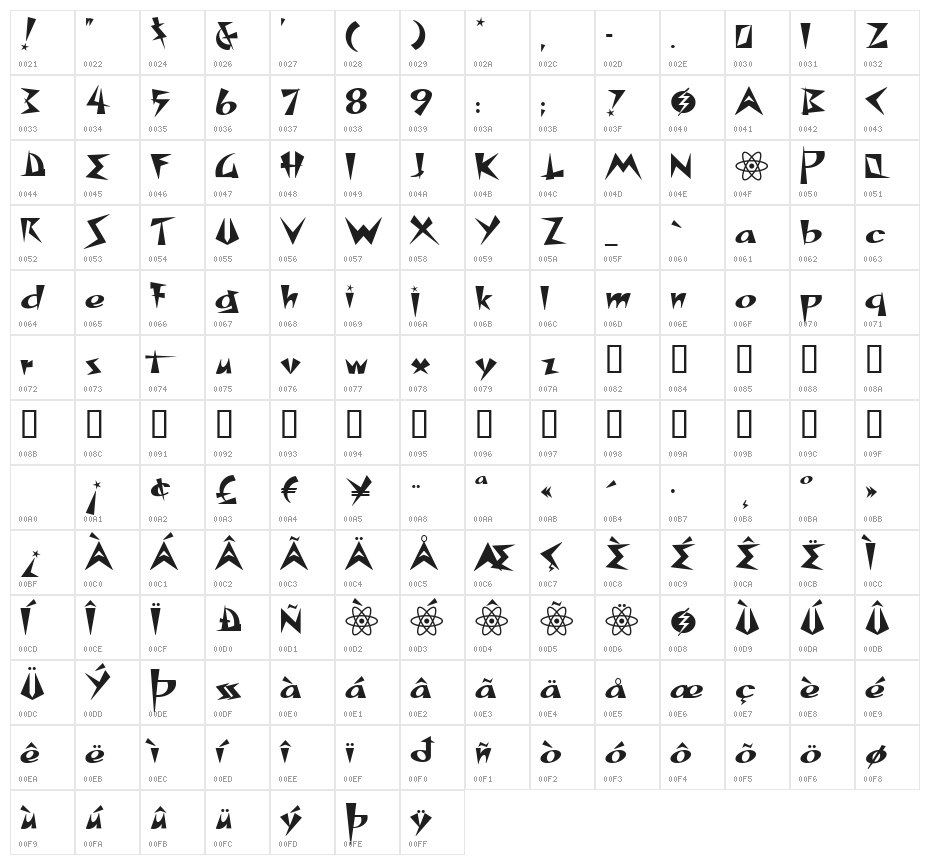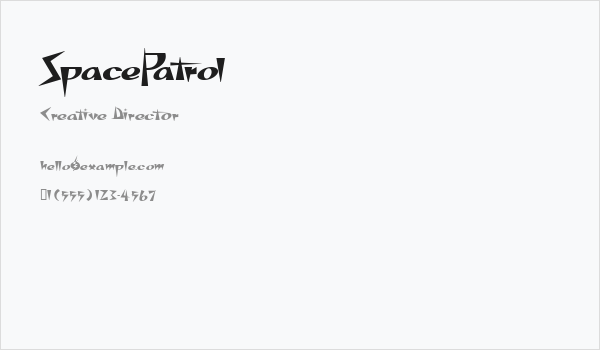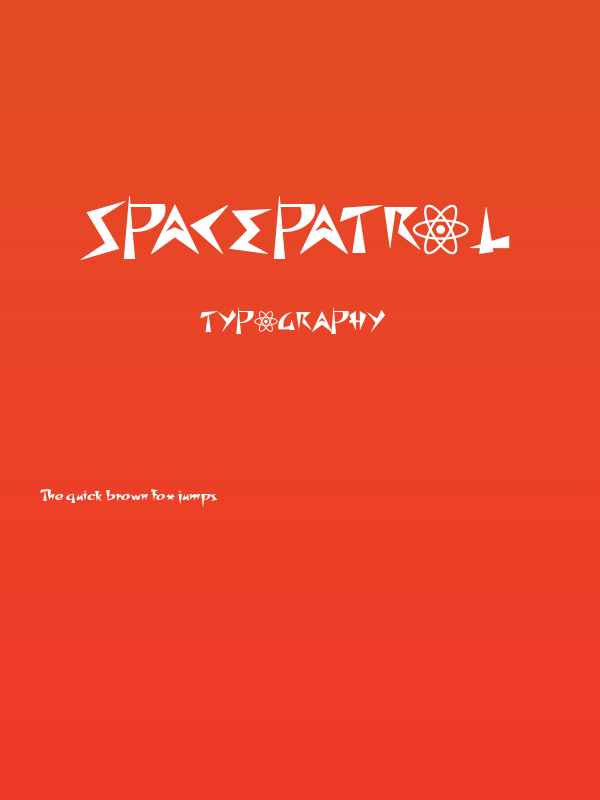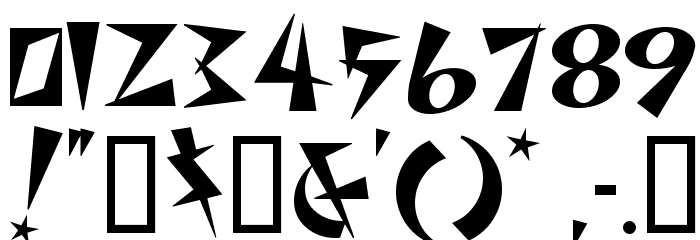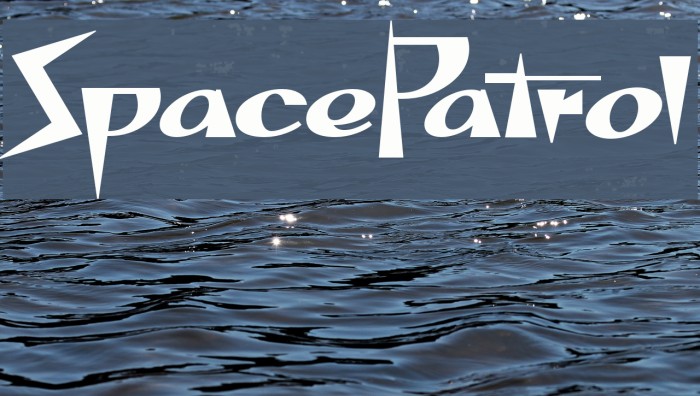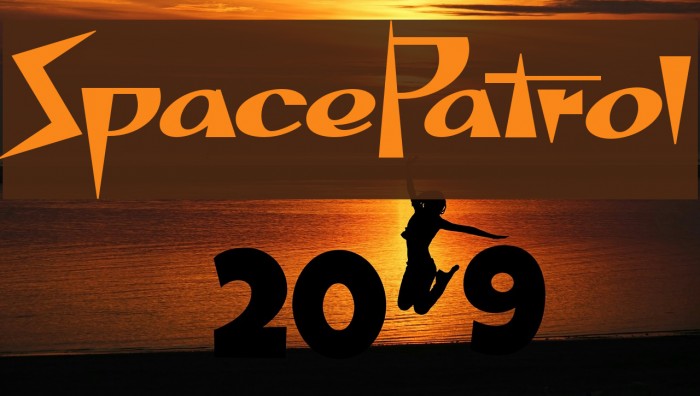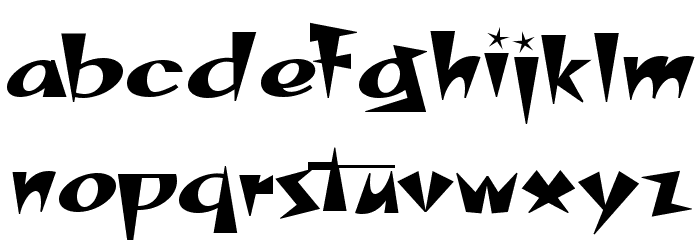
SpacePatrol Font
SpacePatrol Description
This font features a bold and dynamic design with sharp, angular edges and a futuristic aesthetic. The uppercase letters are characterized by their geometric shapes and pointed tips, giving them a space-age feel. The lowercase letters maintain a similar style, with some characters incorporating unique elements like stars and atomic symbols. The numbers are equally bold, with distinctive cuts and angles that match the overall theme. Special characters are creatively designed, adding to the font's unique and playful appearance. This font is ideal for projects that require a modern, edgy look with a touch of sci-fi flair.
| Overall Style | Futuristic, Edgy |
| Proposed Projects | Ideal for sci-fi themed posters, video game titles, futuristic branding, and creative design projects. |